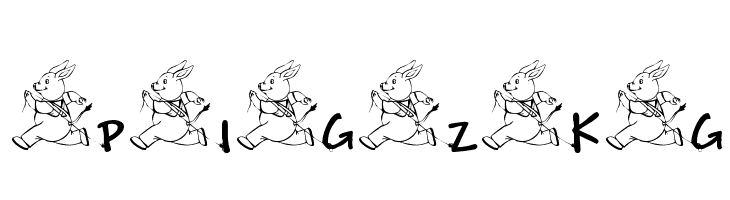
A playful font with cartoon pig illustrations integrated into each character.
A bold, 3D italic font with a dynamic and energetic style.
A dynamic handwritten font with fluid, cursive letterforms.
An elegant and flowing script font with decorative letterforms.
An elegant, cursive script font with a flowing, handwritten style.
Bold, modern font with a strong, blocky style.
A bold, heavy italic font with a modern and dynamic style.
A trophy-themed decorative icon font with bold, outlined cup illustrations.
A playful, handwritten font with rounded edges and a casual style.
A bold, dripping font with a unique, edgy style.